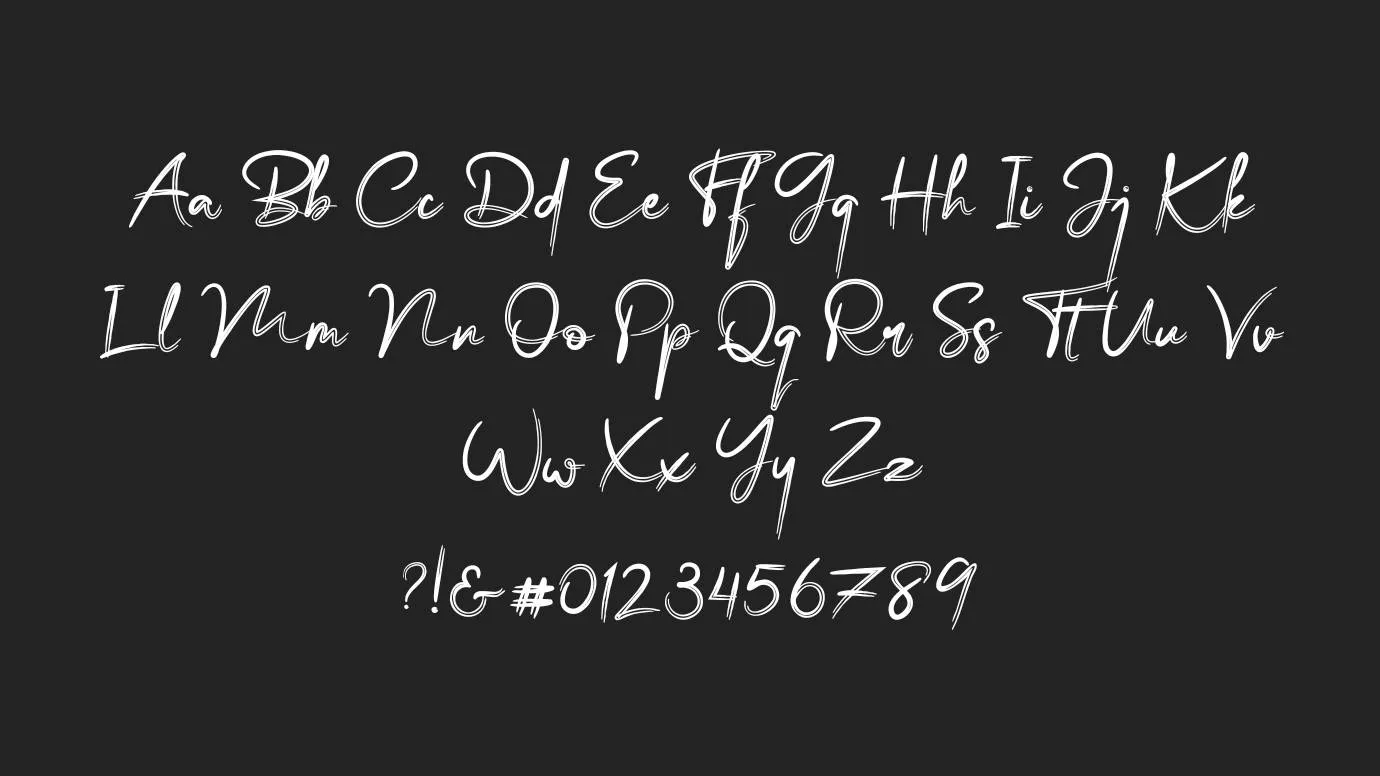
Bassy Font is a very attractive brush font. This amazing font was designed by Erlangga Suherman and manufactured by ErlosDesign.
Bassy Font
NameBassy Font
DesignerErlosDesign
TypeBrush